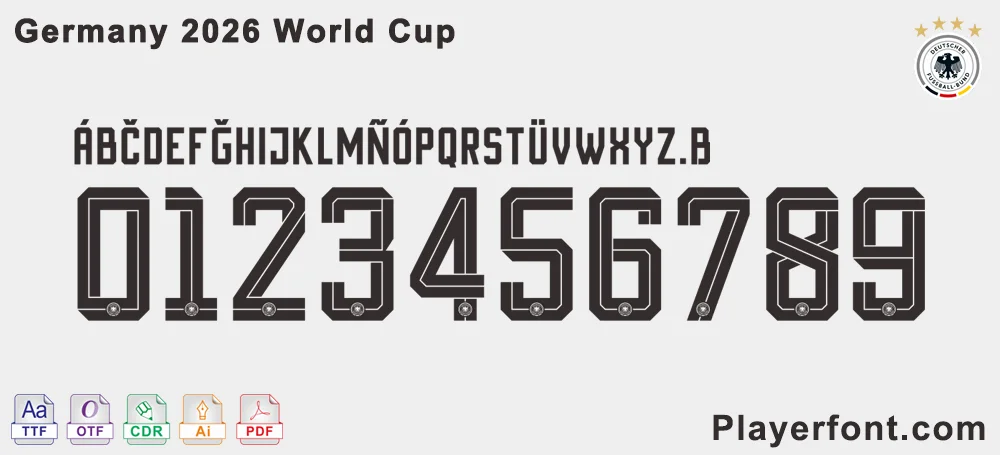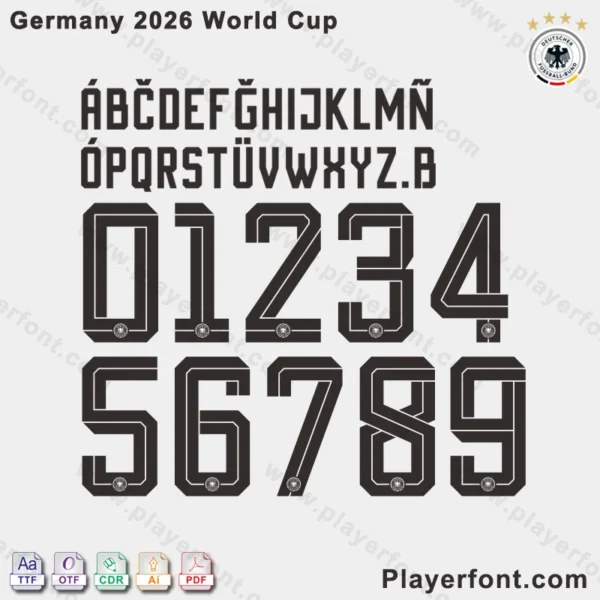
Elevate your design projects with the Germany 2026 World Cup Font, a specially crafted typeface inspired by the passion and legacy of German soccer. Whether you’re creating fan merchandise, sports graphics, branding materials, or artistic works, this font package delivers versatility and style.
Germany 2026 World Cup Font showcase with stylized letters, numbers, and file format options (TTF, OTF, CDR, AI, PDF) – perfect for sports and soccer design projects.
Germany 2026 World Cup Font featuring unique typography for letters and numbers, available in multiple file formats.
The font features distinct German soccer-inspired elements, including stylized letters and numbers with subtle nods to the German national team’s identity. It’s ideal for World Cup-themed projects, sports blogs, soccer club promotions, and any design that demands a bold, athletic aesthetic.
Close-up of Germany 2026 World Cup Font letters and numbers, emphasizing detailed typography and German soccer-inspired design elements, available for download in multiple formats.Germany 2026 World Cup Font – TTF, OTF, AI, CDR, PDF Vector Files Download